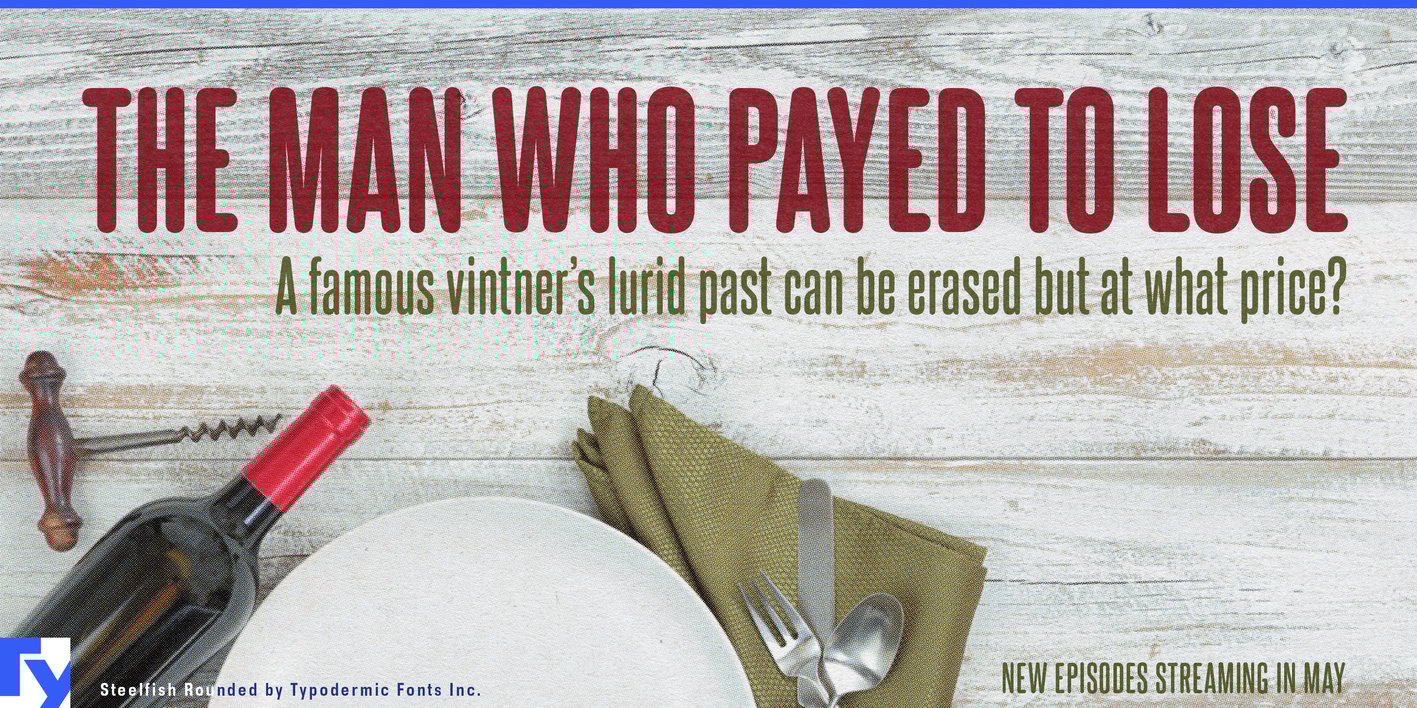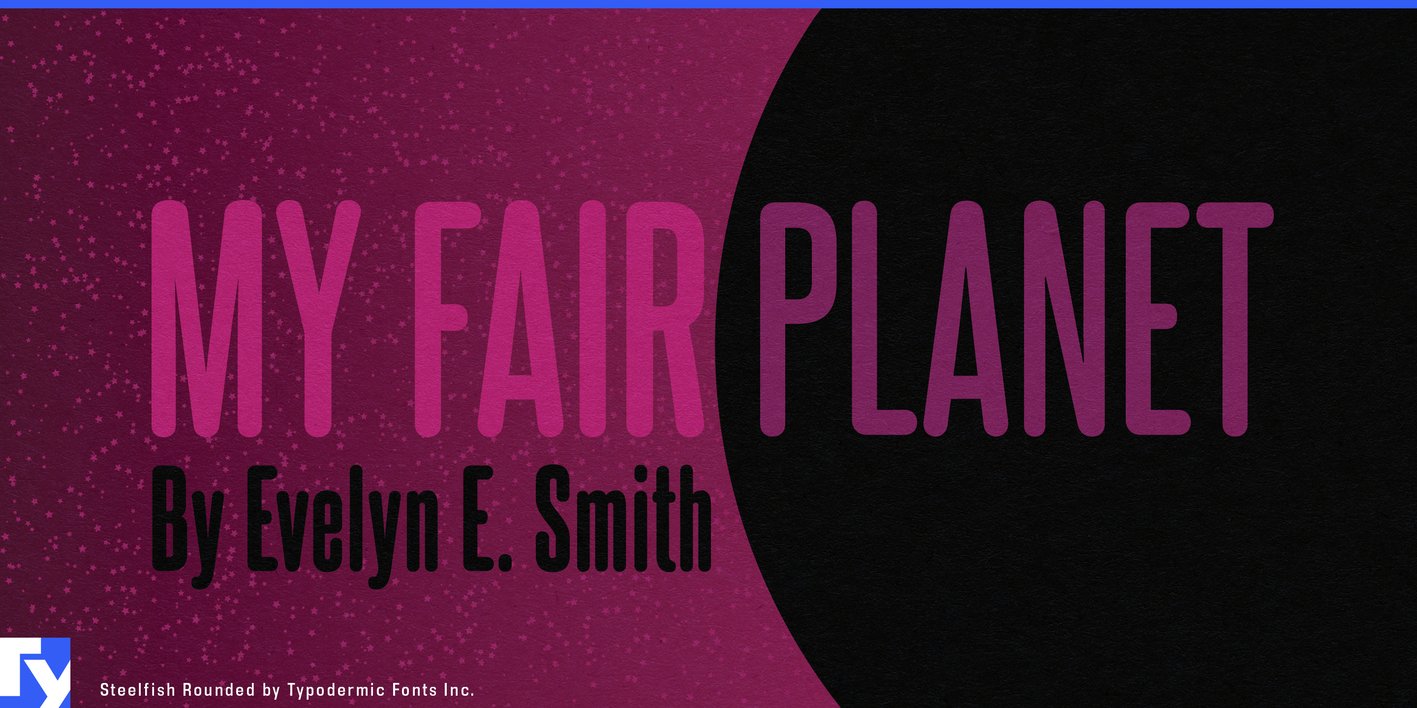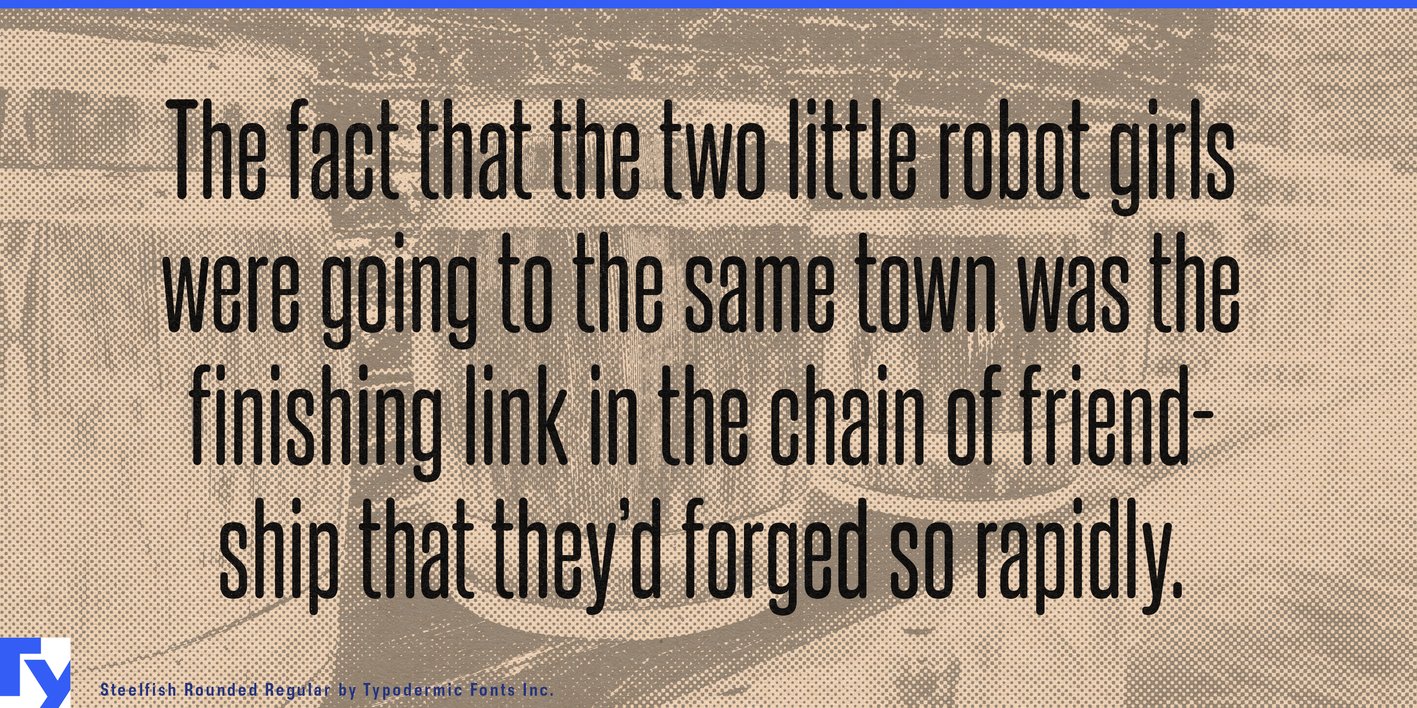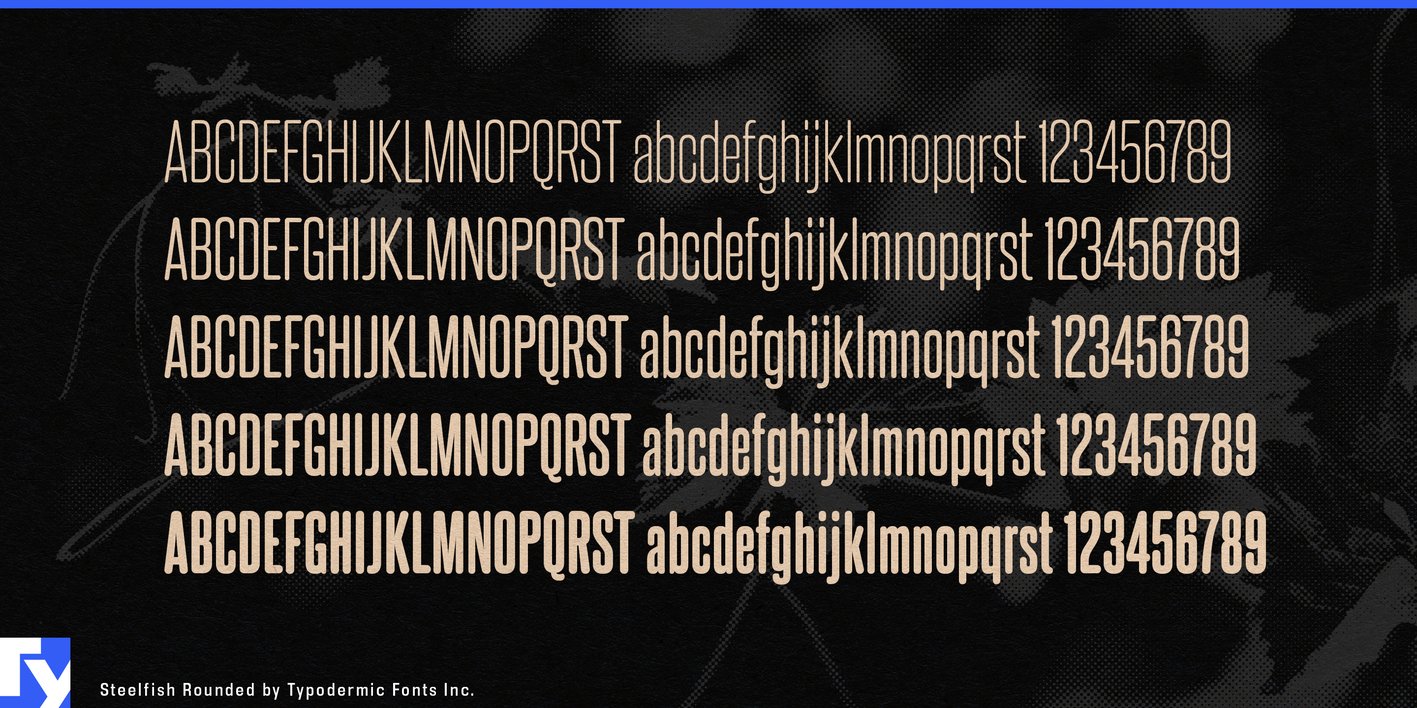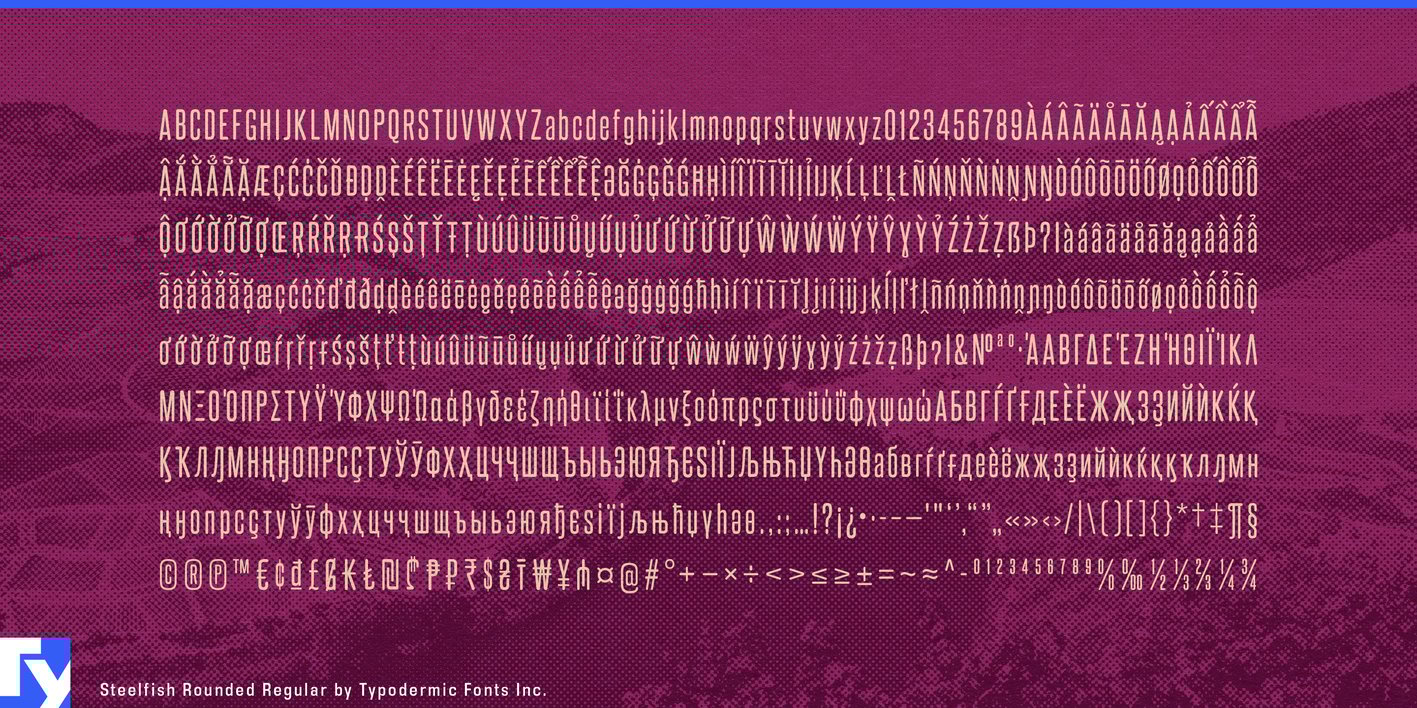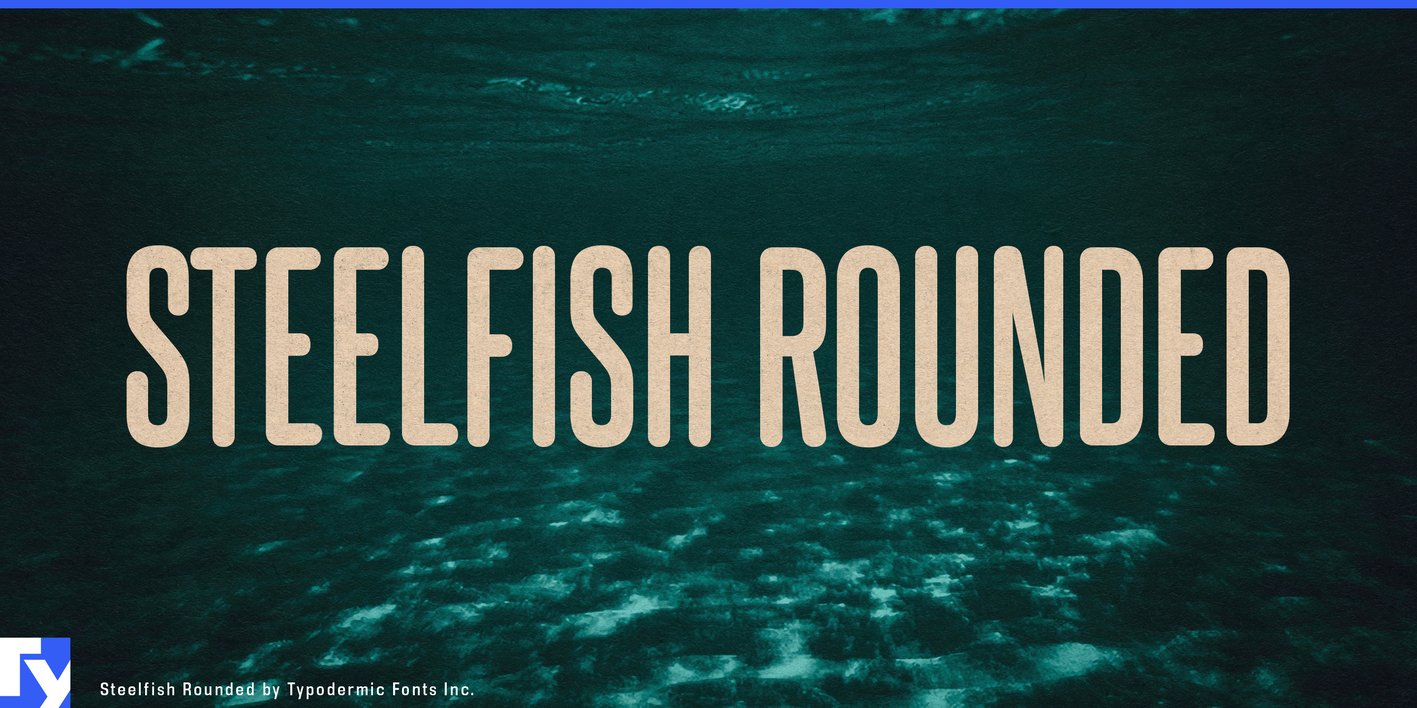
Steelfish Rounded Font
Introducing Steelfish Rounded—the typeface that effortlessly blends the timeless appeal of historical design with the contemporary touch of modern typography. With its compact letterforms and rounded stroke ends, this headliner typeface exudes a sleek and sophisticated aesthetic that is perfect for any project. Based on the beloved Steelfish typeface, Steelfish Rounded takes a unique approach by avoiding trendy stylistic embellishments and antique ornamentation. Instead, it carves its own path, allowing it to swim stealthily through the most challenging of design themes. Steelfish Rounded is the perfect embodiment of balance and harmony. Its compact design and rounded edges create a harmonious blend of tradition and innovation, making it a versatile choice for any project. Whether it’s for headlines, subheadings, or even body text, this typeface’s clean lines and sleek curves are sure to make a lasting impression. There are other kinds of Steelfish: Steelfish Regular, Steelfish Hammer, Steelfish Steeled and Steelfish Unleaded. So, if you’re looking for a typeface that can capture the essence of both old and new, Steelfish Rounded is the one for you. With its gentle, yet powerful strokes, it will help you convey your message with confidence and sophistication. Trust us, with Steelfish Rounded, your designs will be swimming circles around the competition. Most Latin-based European, Vietnamese, Greek, and most Cyrillic-based writing systems are supported, including the following languages. Afaan Oromo, Afar, Afrikaans, Albanian, Alsatian, Aromanian, Aymara, Azerbaijani, Bashkir, Bashkir (Latin), Basque, Belarusian, Belarusian (Latin), Bemba, Bikol, Bosnian, Breton, Bulgarian, Buryat, Cape Verdean, Creole, Catalan, Cebuano, Chamorro, Chavacano, Chichewa, Crimean Tatar (Latin), Croatian, Czech, Danish, Dawan, Dholuo, Dungan, Dutch, English, Estonian, Faroese, Fijian, Filipino, Finnish, French, Frisian, Friulian, Gagauz (Latin), Galician, Ganda, Genoese, German, Gikuyu, Greenlandic, Guadeloupean Creole, Haitian Creole, Hawaiian, Hiligaynon, Hungarian, Icelandic, Igbo, Ilocano, Indonesian, Irish, Italian, Jamaican, Kaingang, Khalkha, Kalmyk, Kanuri, Kaqchikel, Karakalpak (Latin), Kashubian, Kazakh, Kikongo, Kinyarwanda, Kirundi, Komi-Permyak, Kurdish, Kurdish (Latin), Kyrgyz, Latvian, Lithuanian, Lombard, Low Saxon, Luxembourgish, Maasai, Macedonian, Makhuwa, Malay, Maltese, Māori, Moldovan, Montenegrin, Nahuatl, Ndebele, Neapolitan, Norwegian, Novial, Occitan, Ossetian (Latin), Papiamento, Piedmontese, Polish, Portuguese, Quechua, Rarotongan, Romanian, Romansh, Russian, Rusyn, Sami, Sango, Saramaccan, Sardinian, Scottish Gaelic, Serbian, Serbian (Latin), Shona, Sicilian, Silesian, Slovak, Slovenian, Somali, Sorbian, Sotho, Spanish, Swahili, Swazi, Swedish, Tagalog, Tahitian, Tajik, Tatar, Tetum, Tongan, Tshiluba, Tsonga, Tswana, Tumbuka, Turkish, Turkmen (Latin), Tuvaluan, Ukrainian, Uzbek, Uzbek (Latin), Venda, Venetian, Vepsian, Vietnamese, Võro, Walloon, Waray-Waray, Wayuu, Welsh, Wolof, Xavante, Xhosa, Yapese, Zapotec, Zarma, Zazaki, Zulu and Zuni.